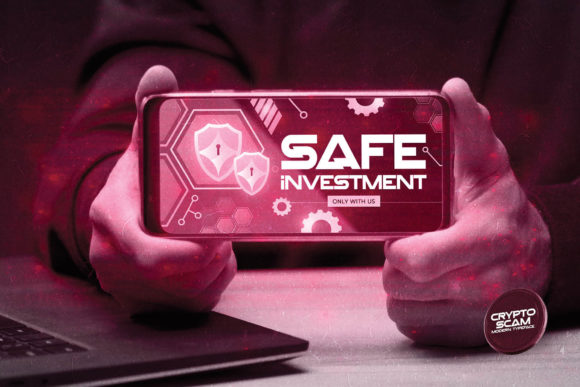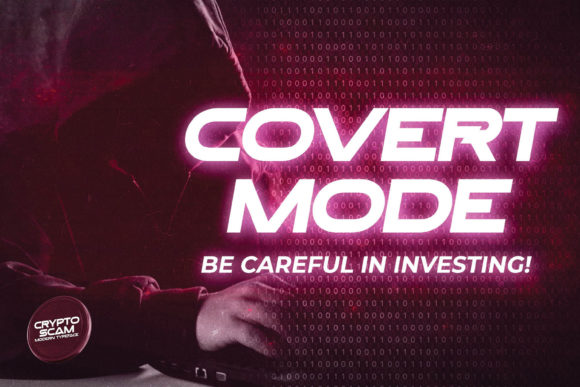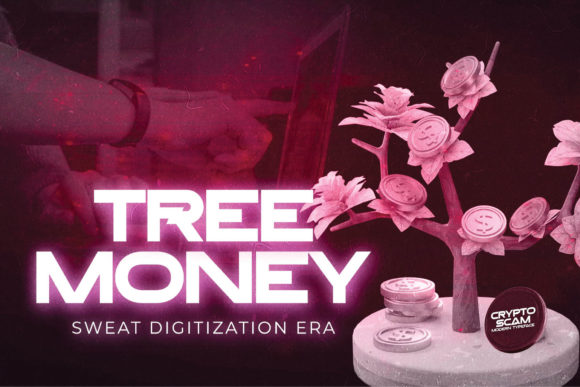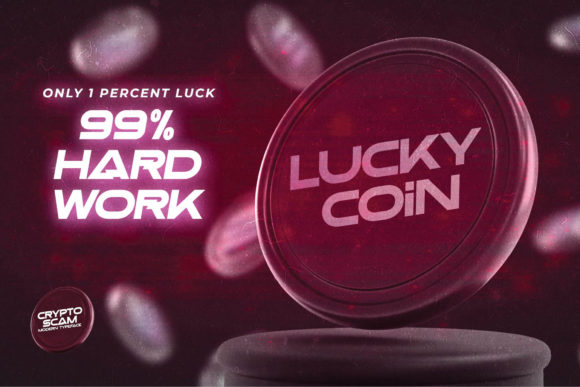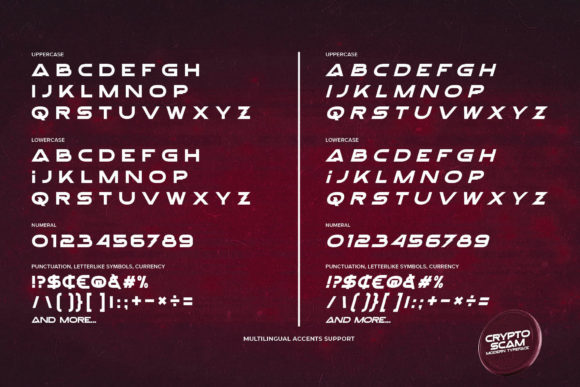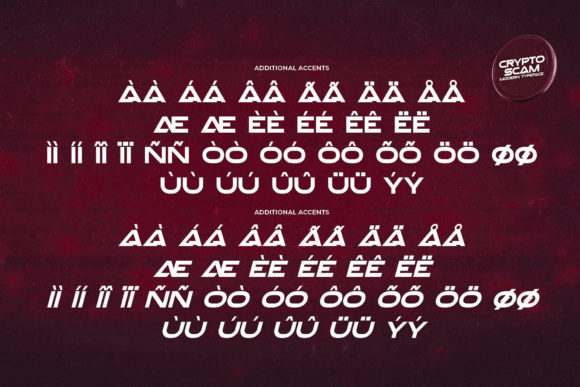
Crypto Scam Font: The Ultimate Choice for Futuristic Designs
In the world of design, fonts play a crucial role in conveying the tone and aesthetic of a project. When it comes to creating a futuristic vibe, a bold and robotic styled display font is often the go-to choice. This is where Crypto Scam Font comes in – a cool, bold, and robotic styled display font that’s perfect for any branding project. In this article, we’ll dive into the features and benefits of Crypto Scam Font, and explore how it can elevate your designs to the next level.
What is Crypto Scam Font?
Crypto Scam Font is a display font designed to give your projects a futuristic and robotic feel. Its bold and sleek design makes it perfect for logos, t-shirt printing, creative products, and any other project that requires a modern and edgy look. The font’s unique design is inspired by the world of cryptocurrency and technology, making it an ideal choice for designers and crafters who want to create a cutting-edge aesthetic.
Key Features of Crypto Scam Font
- Bold and Robotic Design: Crypto Scam Font features a bold and robotic design that’s perfect for creating a futuristic vibe.
- Display Font: This font is specifically designed as a display font, making it ideal for headlines, titles, and other prominent text elements.
- Versatile: Crypto Scam Font can be used for a wide range of projects, from logos and t-shirt printing to creative products and more.
- Easy to Read: Despite its bold design, Crypto Scam Font is easy to read, making it perfect for use in a variety of contexts.
Benefits of Using Crypto Scam Font
So, why choose Crypto Scam Font for your next project? Here are just a few benefits of using this amazing font:
- Instant Recognition: The bold and robotic design of Crypto Scam Font makes it instantly recognizable, helping your brand or project stand out from the crowd.
- Professional Look: The font’s sleek and modern design gives your project a professional look that’s perfect for businesses, startups, and entrepreneurs.
- Customization: Crypto Scam Font can be easily customized to fit your project’s needs, from adjusting the size and color to adding effects and textures.
In conclusion, Crypto Scam Font is an amazing choice for designers and crafters who want to create a futuristic and robotic vibe. With its bold and sleek design, versatility, and ease of use, this font is perfect for any branding project. Whether you’re creating a logo, t-shirt design, or social media graphic, Crypto Scam Font is sure to elevate your design to the next level. So why wait? Download Crypto Scam Font today and start creating stunning designs that are out of this world!